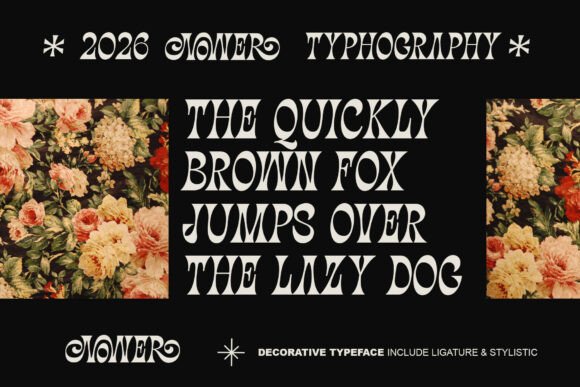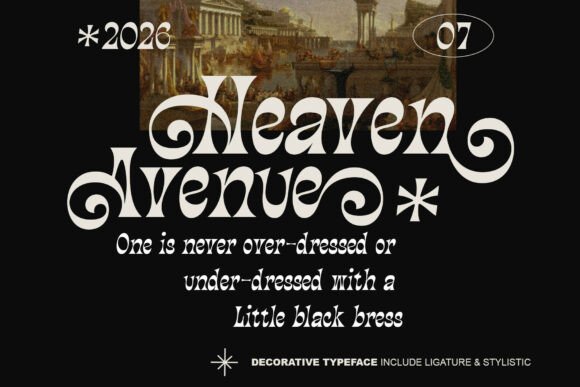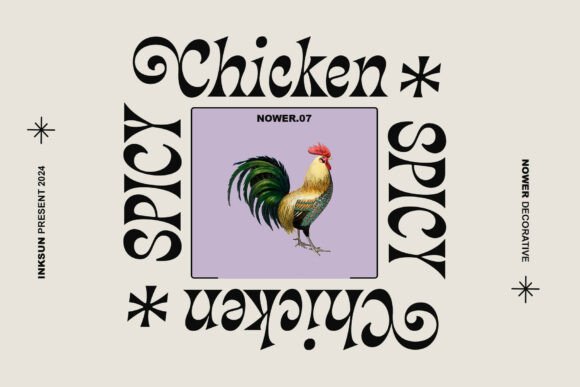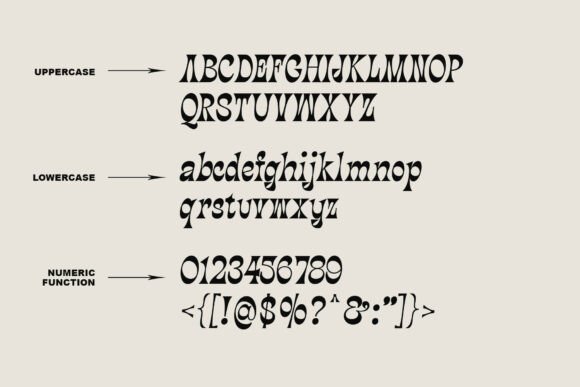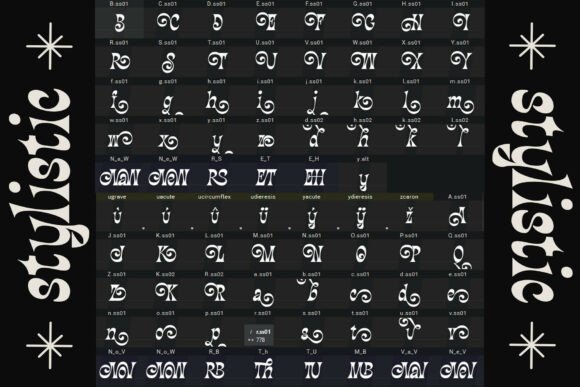
Getting Your Creative Groove On with Nower Font
Remember that moment when you’re working on a design project, and you need that one font that screams ‘I’m here, I’m loud, and I’m unmissable’? For designers like you, Nower Font is about to become your new go-to companion. This high-energy display typeface is designed to command attention with its bold, psychedelic silhouette.
With its fluid, wavy letterforms and dramatic, interlocking ligatures, Nower Font captures a sense of rhythmic movement and retro-futuristic flair. Whether you’re working on high-impact music posters, edgy streetwear branding, or vibrant social media graphics, this font is a standout choice for designers who demand a strong, expressive visual identity.
Key Features of Nower Font
- Designed with a focus on legibility and aesthetic appeal, making it suitable for a wide range of applications.
- Perfect for designers working on creative projects that demand a distinctive and high-quality font, such as branding, advertising, and editorial content.
Honest Review: Nower Font
What works well: ✨ The high quality of the font is impressive, with clean lines and a unique aesthetic that adds a touch of creativity to any project. The transparent background option allows for seamless integration into any design, whether it’s for a website, social media, or print material.
- Customizable and versatile
- Perfect for creative projects and presentations
- High-quality design suitable for various industries
However, there are a few limitations to consider: ⚠️ The font selection is limited, and I wish there were more options to choose from. Additionally, the font may not be suitable for all audiences, as it’s quite bold and attention-grabbing.
Overall, I’m thoroughly impressed with the Nower Font. It’s a valuable addition to any designer’s toolkit, and I would highly recommend it for any creative project. Just be mindful of the limitations, and you’ll be well on your way to creating stunning designs with this high-quality font.
Nower Font
Nower Font is a high-quality design resource that can elevate your creative project with its unique and stylish typography. With a transparent background, this font is perfect for designers looking to add a touch of sophistication to their designs.
Tips for Getting the Most Out of Nower Font
To get the most out of Nower Font, experiment with different font sizes, colors, and combinations to create unique and eye-catching designs. This font is perfect for creating attention-grabbing headlines and titles.
Nower Font is ideal for a wide range of creative projects, including: branding, marketing materials, social media graphics, and more. Its high-quality typography and transparent background make it a versatile choice for designers.
Is Nower Font suitable for high-quality print projects?
Yes, Nower Font is designed to be a high-quality design resource, making it perfect for a wide range of print projects, including business cards, brochures, and posters. Its crisp, clear lines and well-crafted typography ensure that your design will look its best when printed at high resolutions.